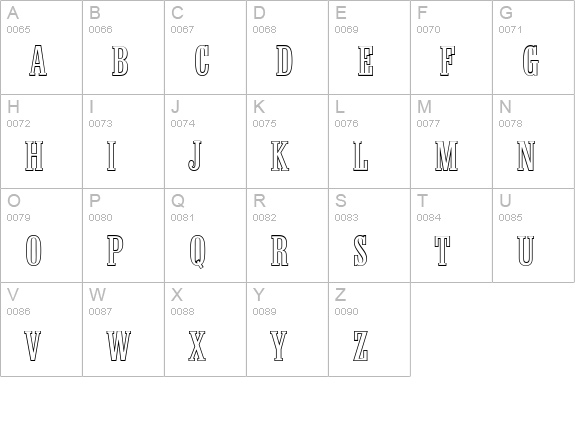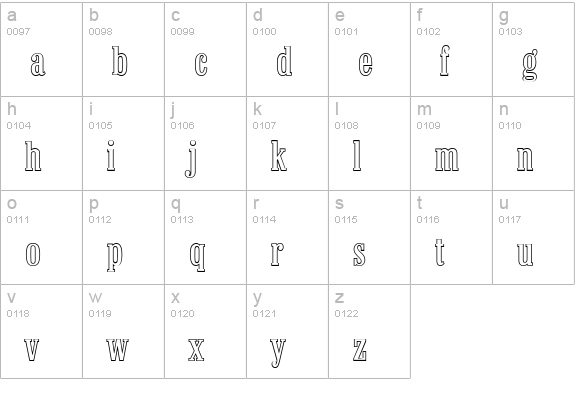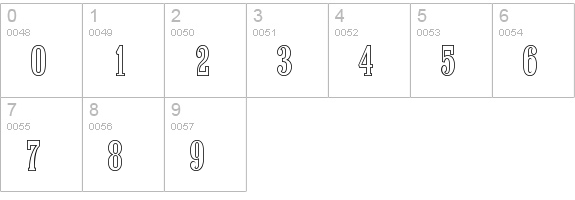
ColonelOutline-Regular Font Details
ColonelOutline-Regular is the standard, neutral variant in the ColonelOutline typeface family \xE2\x80\x94 well suited to general body text, paragraphs, and standard typographic work.
ColonelOutline-Regular font is a versatile and modern typeface that combines elegance with a touch of boldness. With its clean lines and sharp edges, this font exudes a sense of sophistication and professionalism. Perfect for a wide range of design projects, from branding to editorial design, this font offers a distinctive and eye-catching look. The best part? ColonelOutline-Regular font is available for free download at FontsMarket.com. Whether you're a graphic designer, a web developer, or just someone looking to add a stylish touch to your projects, this font is a great choice. Don't miss out on the opportunity to enhance your designs with this sleek and stylish typeface, easily accessible and ready for you to use.